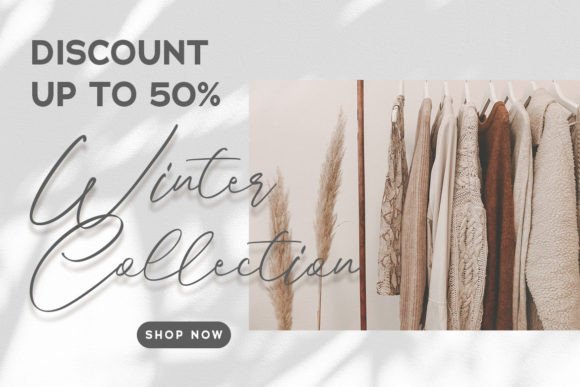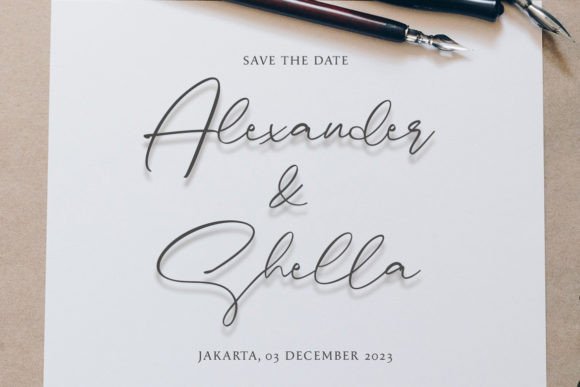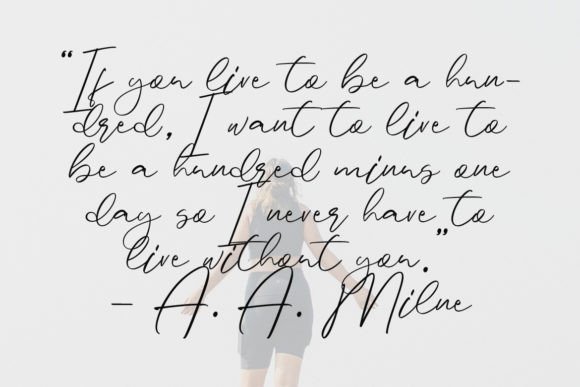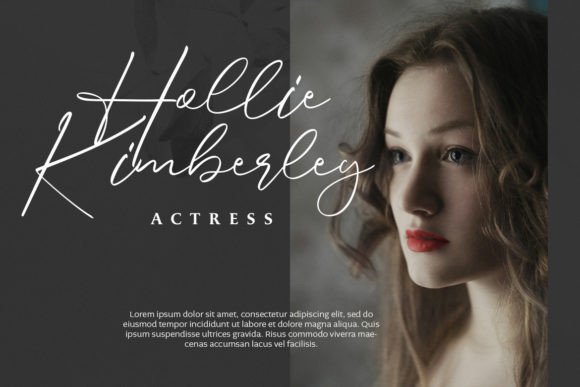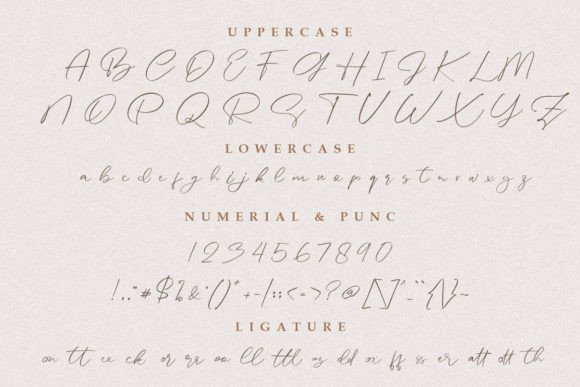
Introducing Astoria Font: The Perfect Blend of Script and Handwriting Styles
Are you looking for a font that can add a touch of elegance and personality to your designs? Look no further than Astoria Font, a beautiful and enchanting font that seamlessly blends script and handwriting styles. This font is a true testament to the beauty of individuality and artistic expression, making it perfect for designers and crafters who want to add a unique touch to their work.
The Beauty of Astoria Font
Astoria Font is meticulously crafted to capture the essence of handwritten charm. With its flowing strokes and intricate details, it brings a touch of sophistication and elegance to your designs. Each character is carefully designed to showcase the beauty of script and handwriting styles, making it perfect for a variety of design projects, from invitations and greeting cards to blog posts and social media graphics.
One of the standout features of Astoria Font is its ability to add a personal touch to your designs. The font’s handwritten charm makes it feel like you’re writing with a pen, rather than typing on a keyboard. This makes it perfect for designers and crafters who want to create a sense of connection and intimacy with their audience.
Astoria Font is versatile and can be used for a wide range of design projects. Here are a few ideas to get you started:
- Invitations: Use Astoria Font to create beautiful and elegant invitations for weddings, birthday parties, and other special occasions.
- Greeting Cards: Add a personal touch to your greeting cards with Astoria Font, making them feel like handwritten notes.
- Blog Posts: Use Astoria Font to add a touch of elegance and sophistication to your blog posts, making them stand out from the crowd.
- Social Media Graphics: Create eye-catching social media graphics with Astoria Font, perfect for sharing on Instagram, Facebook, and Twitter.
Why Choose Astoria Font?
So why choose Astoria Font for your design projects? Here are a few reasons:
- Unique and Elegant: Astoria Font is a unique and elegant font that will add a touch of sophistication to your designs.
- Handwritten Charm: The font’s handwritten charm makes it feel like you’re writing with a pen, rather than typing on a keyboard.
- Versatile: Astoria Font can be used for a wide range of design projects, from invitations and greeting cards to blog posts and social media graphics.
In conclusion, Astoria Font is a beautiful and enchanting font that seamlessly blends script and handwriting styles. With its flowing strokes and intricate details, it brings a touch of elegance and a personal touch to your designs. Whether you’re a designer or crafter, Astoria Font is the perfect choice for adding a unique touch to your work. So why wait? Download Astoria Font today and start creating stunning designs that will leave a lasting impression.
Let Astoria Font be your creative companion, transforming ordinary text into extraordinary works of typographic wonder. With its captivating allure and magical charm, this font is sure to spellbind your audience and leave them wanting more.